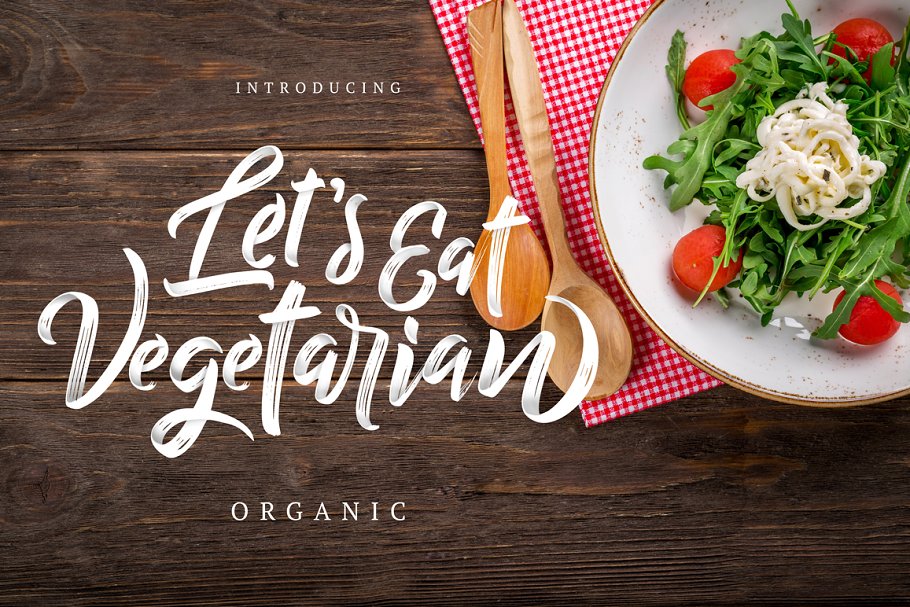
Introducing Billy Ohio Typeface, the perfect script font for your design project that needs a touch of fun, bravery, and sportiness. Created by the talented Alit Suarnegara, this font family offers a unique and fast dry brush style that looks natural like a handmade.
Billy Ohio Typeface is more than just a font; it's an experience that will elevate your design project to the next level. Whether you need a logotype, header website, quote lettering, or t-shirt design, this font family will give you many options of alternative glyphs that will make your design stand out.
With two font styles - Billy Ohio Dua and Billy Ohio Swash - you can choose the best style that suits your design needs. Billy Ohio Swash offers a dry brush formatted font, giving your design a touch of elegance and style.
What's more, Billy Ohio Typeface includes a range of features such as character set A-Z, numerals and punctuations (OpenType Standard), accents (multilingual characters), standard ligature, stylistic alternates, SS01, and SS02. This font family is available in OTF, TTF format, and web font.